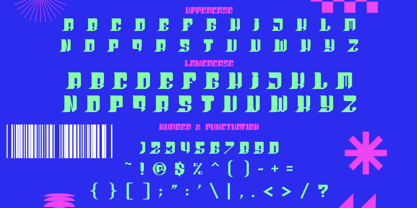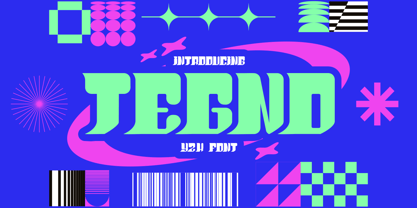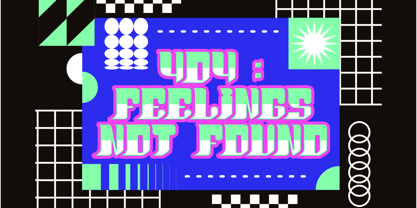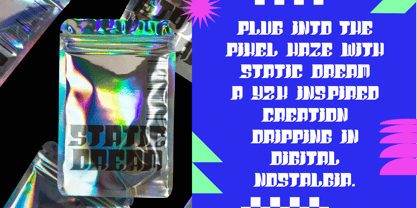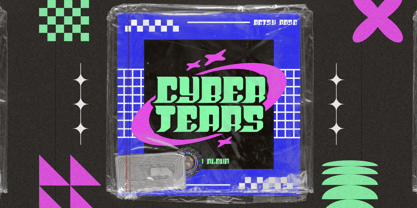
Tegno
by Shanaf
The Tegno Font Family was designed by Yesie Erma Yunita and published by Shanaf. Tegno contains 1 styles. More about this family
Step into the retro-futuristic world of Tegno, a bold Y2K font that captures the spirit of early 2000s digital culture. Designed with a techno-sci-fi aesthetic, this font boasts thick, blocky letterforms with stylized bevels and unexpected curves that give off a nostalgic yet futuristic vibe. The sharp edges and exaggerated terminals provide a cybernetic rhythm that feels right at home in digital realms, glitch art, rave flyers, and space-age branding. From bold display use to album artwork, Tegno delivers a striking visual identity that channels vaporwave flair, arcade nostalgia, and the bold irreverence of turn-of-the-millennium aesthetics.
The font's color presentation in vibrant mint green and electric pink over a deep royal blue background reinforces its Y2K essence—evoking memories of early internet graphics and sci-fi packaging. Complete with uppercase, lowercase, numbers, and a robust set of symbols and punctuation, Tegno is optimized for both print and digital media. Ideal for tech startups, music labels, fashion packaging, or anything craving a burst of retro-futurism, this font is your gateway to creating visuals that feel both nostalgic and next-gen.
Designers: Yesie Erma Yunita
Foundry: Shanaf